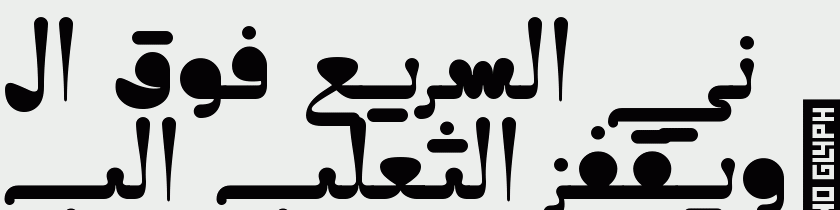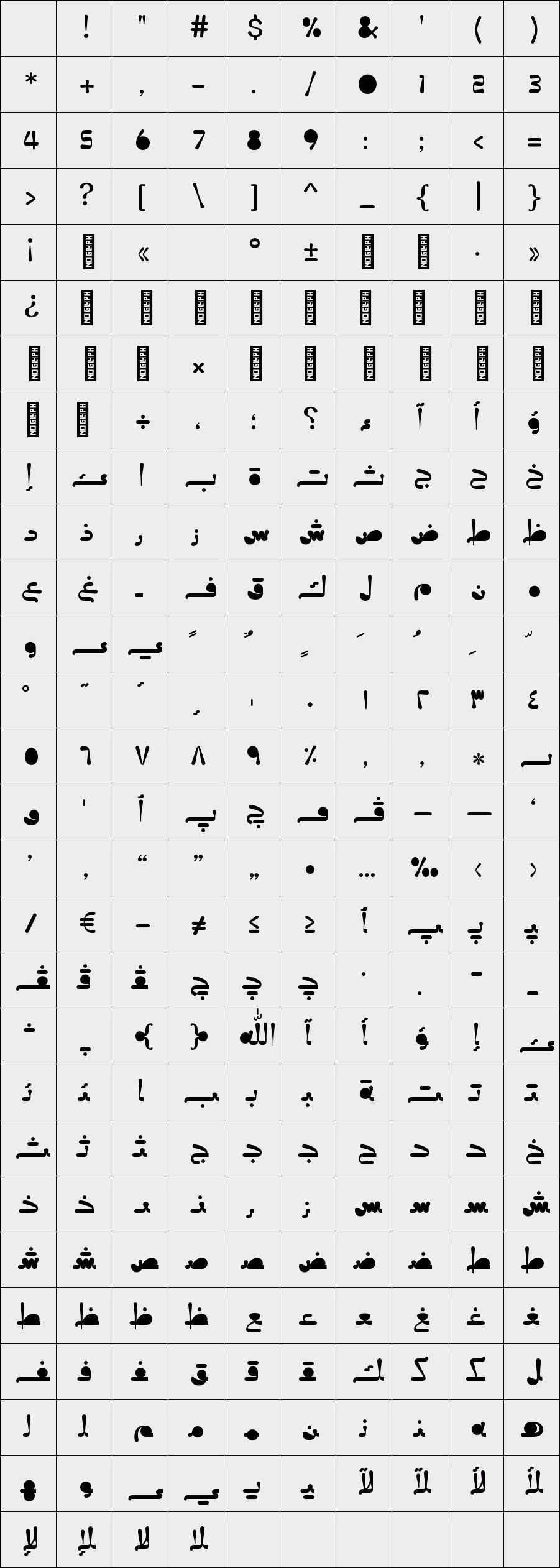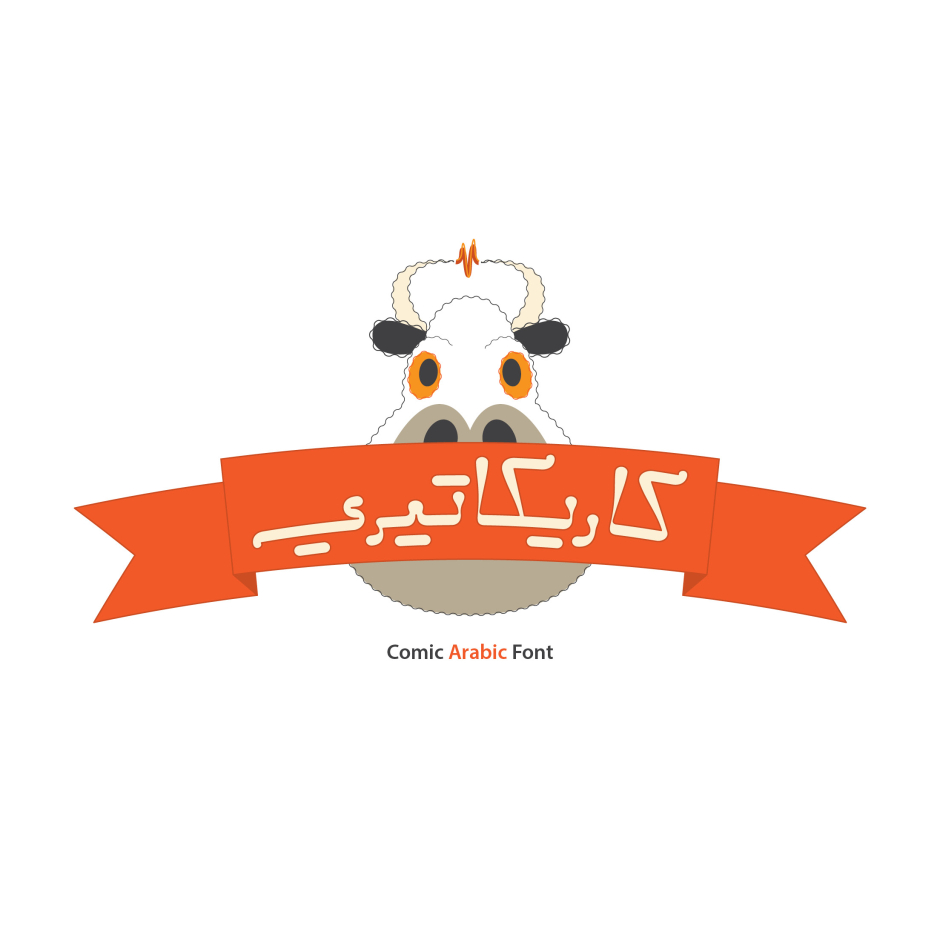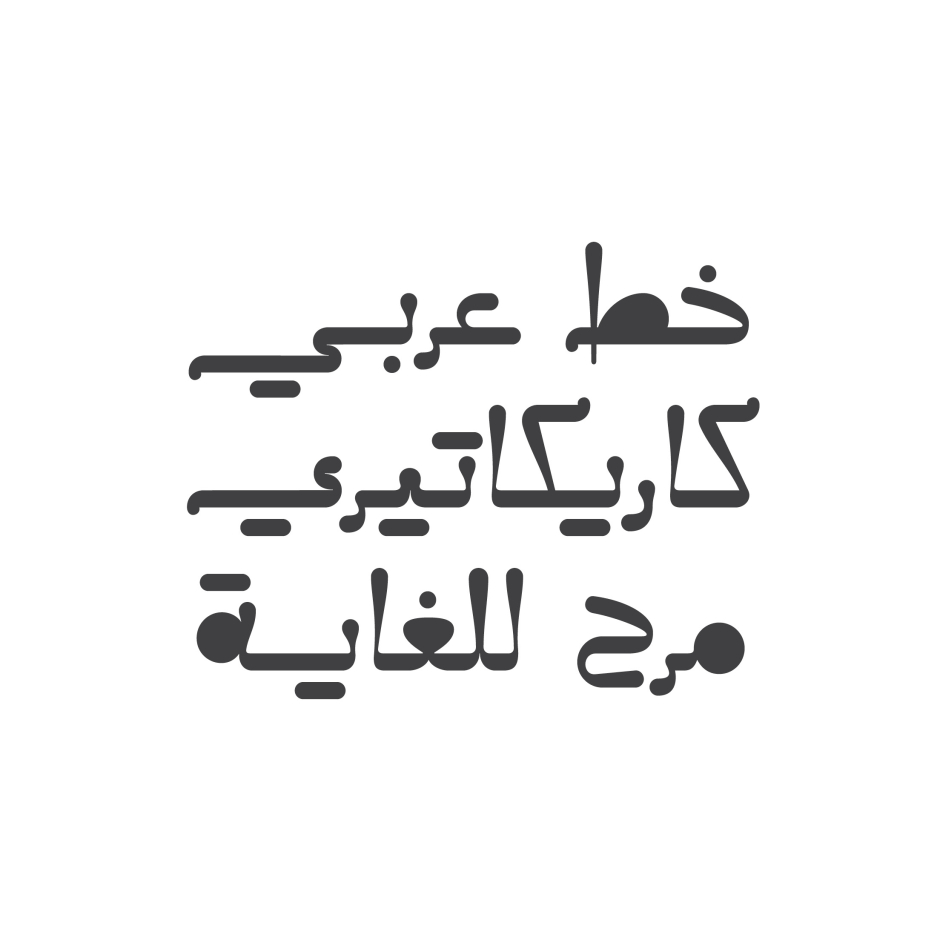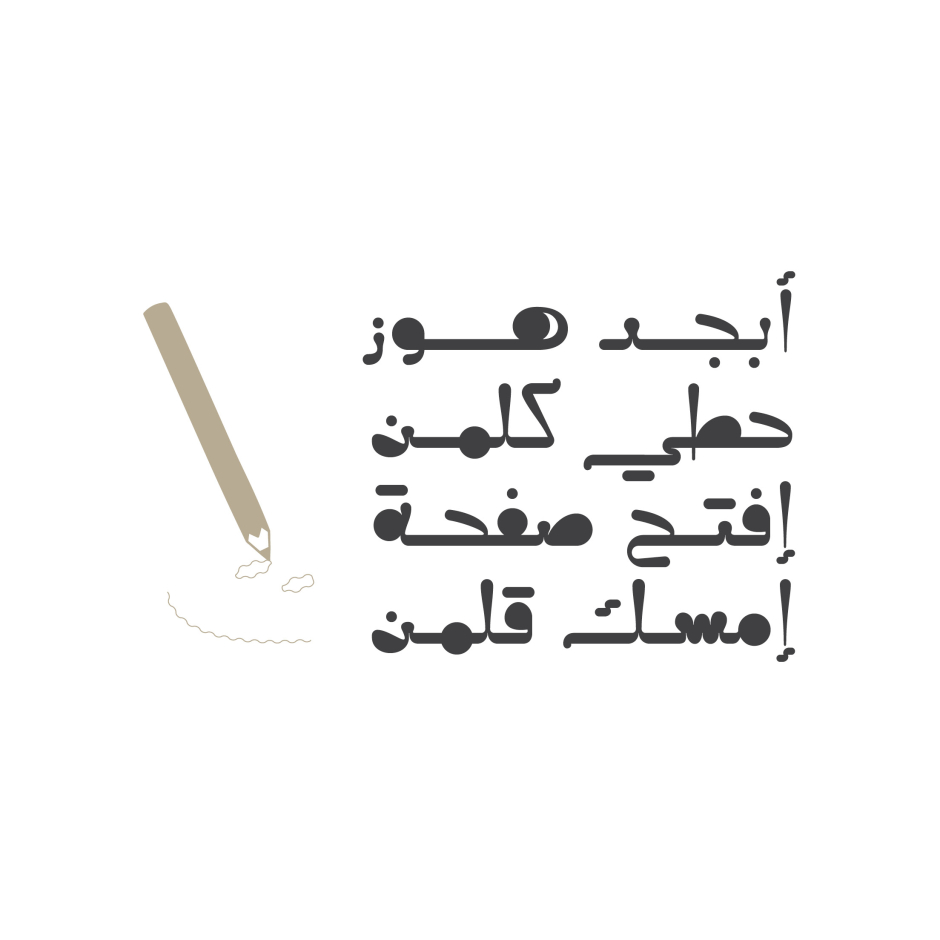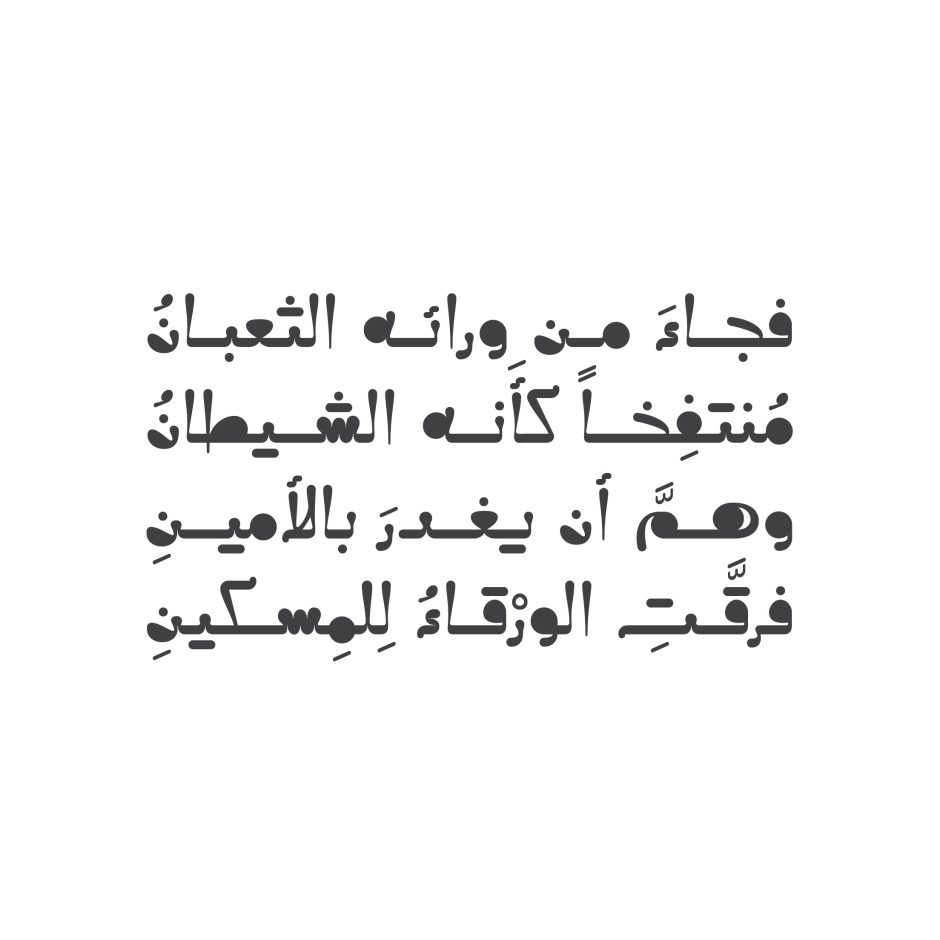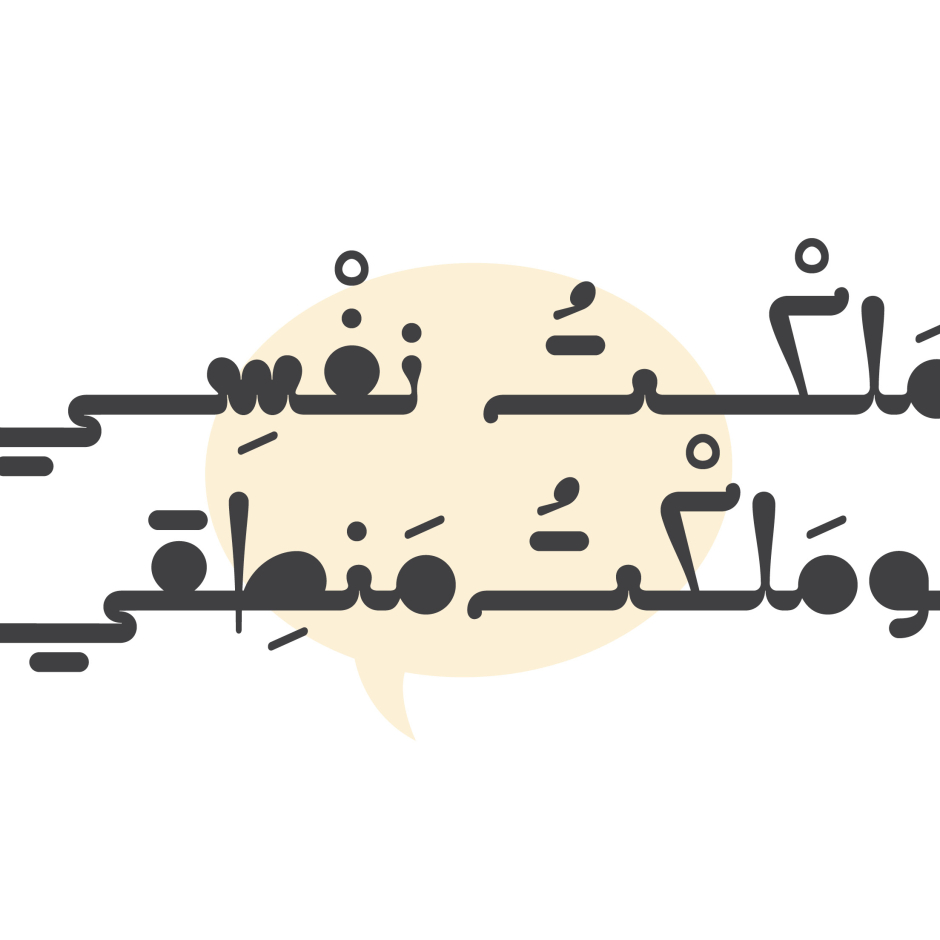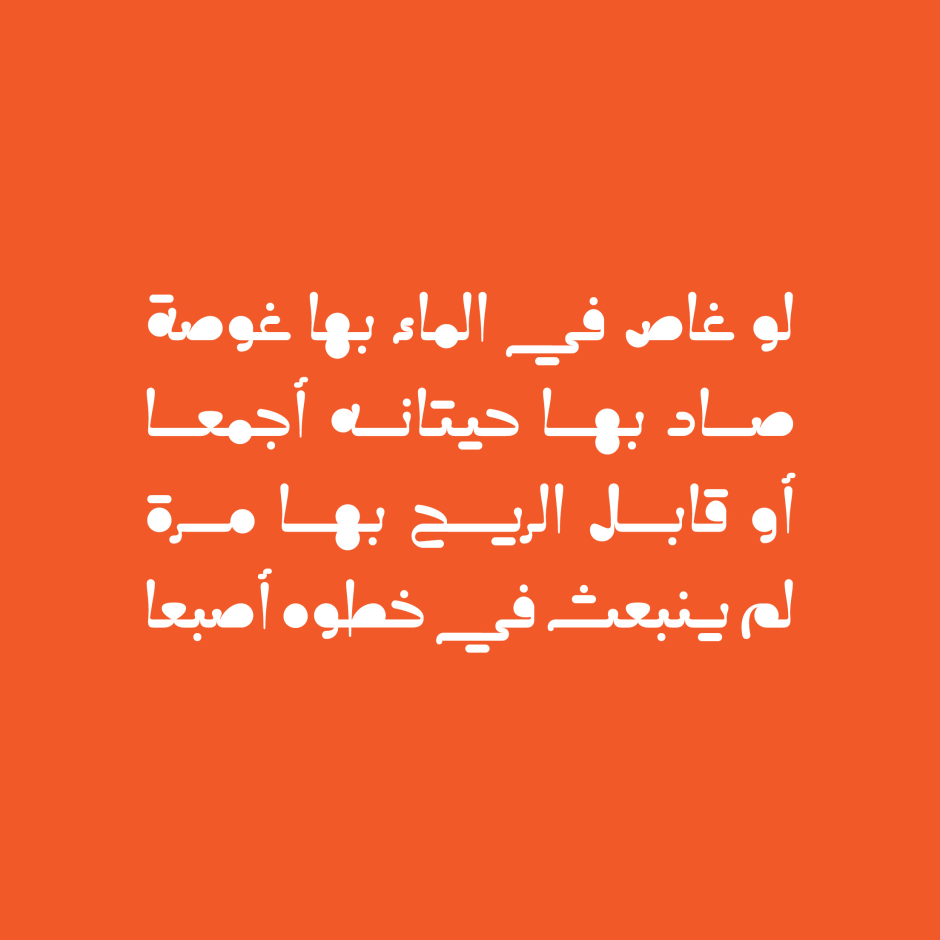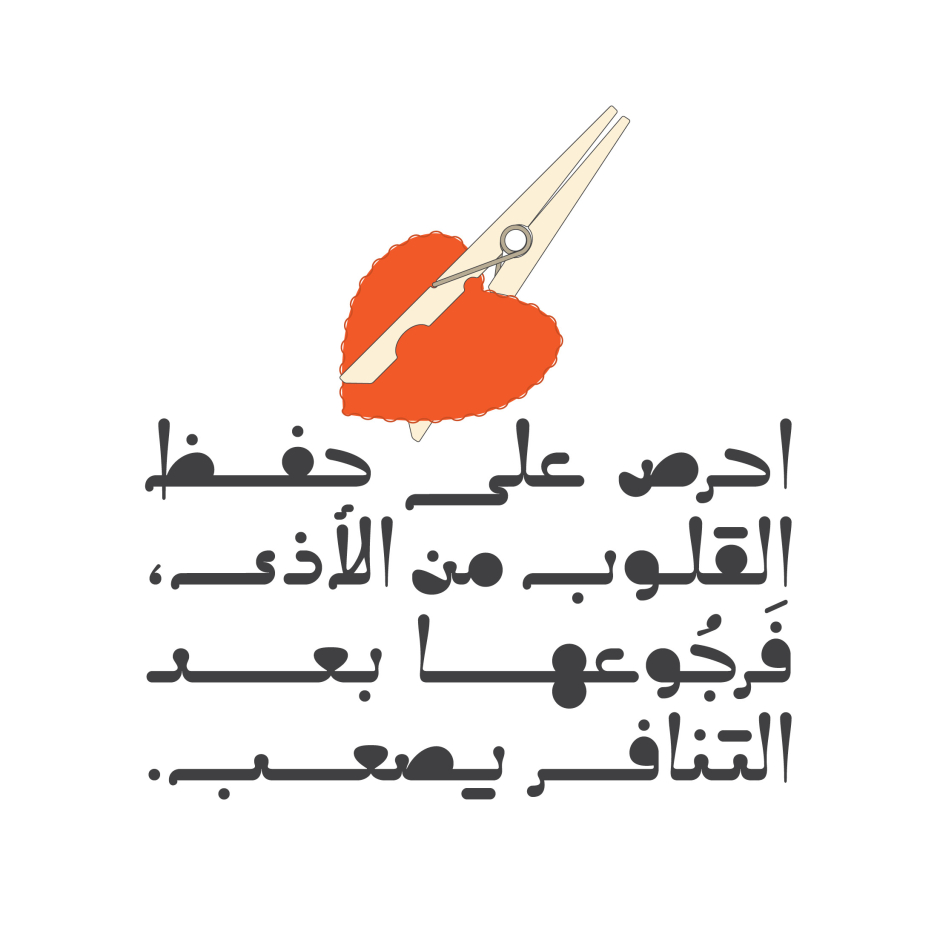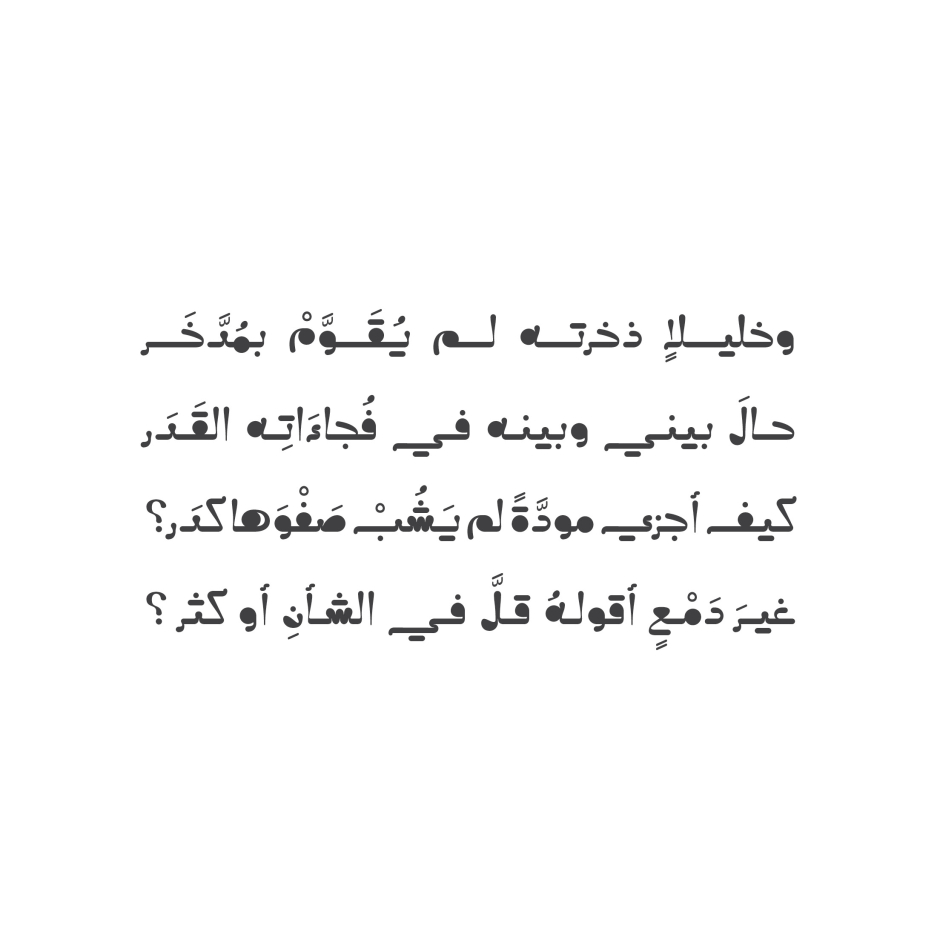
Caricaturey
/ Caricaturey Font
Caricaturey is an Arabic display font that features a humorous letterform design. The font tries to simulate the uneven ink flow effect that reflects a caricature-like style. Caricaturey is a very good companion to comics, caricature drawings in addition to other design projects.